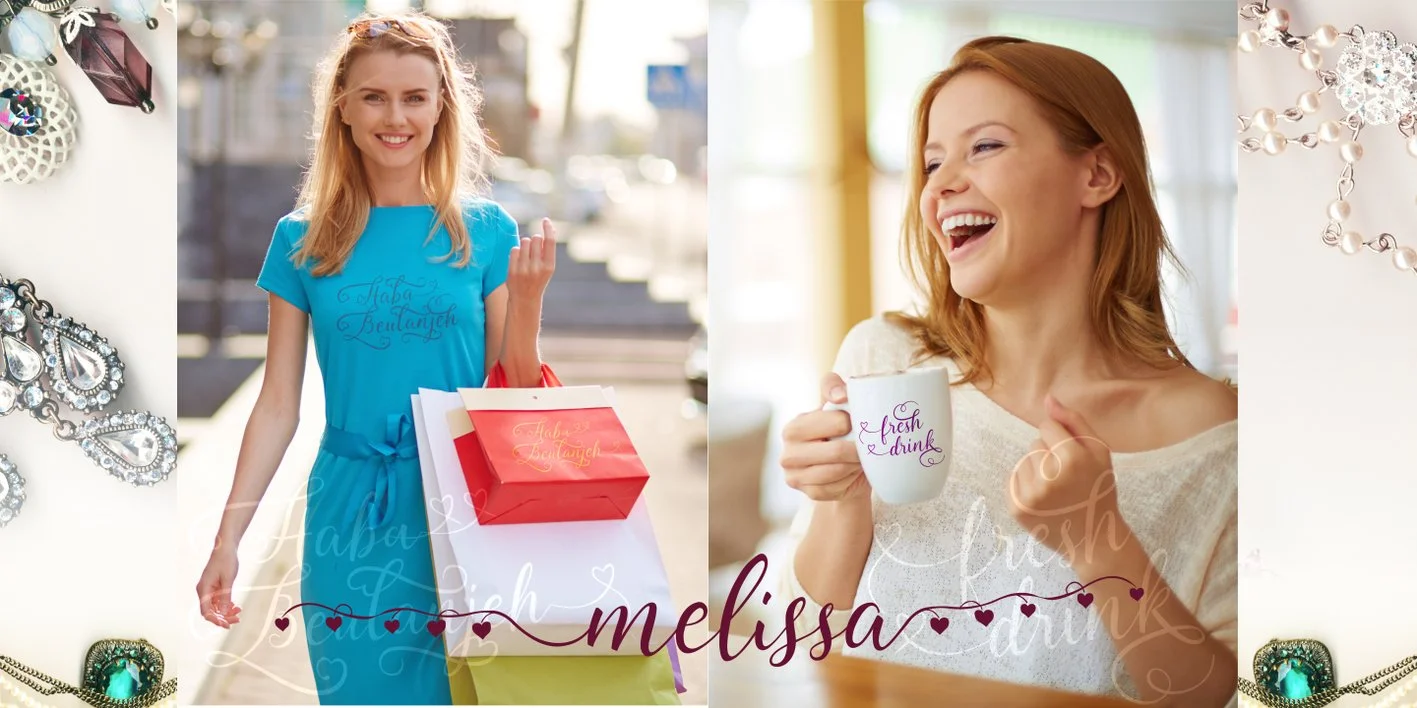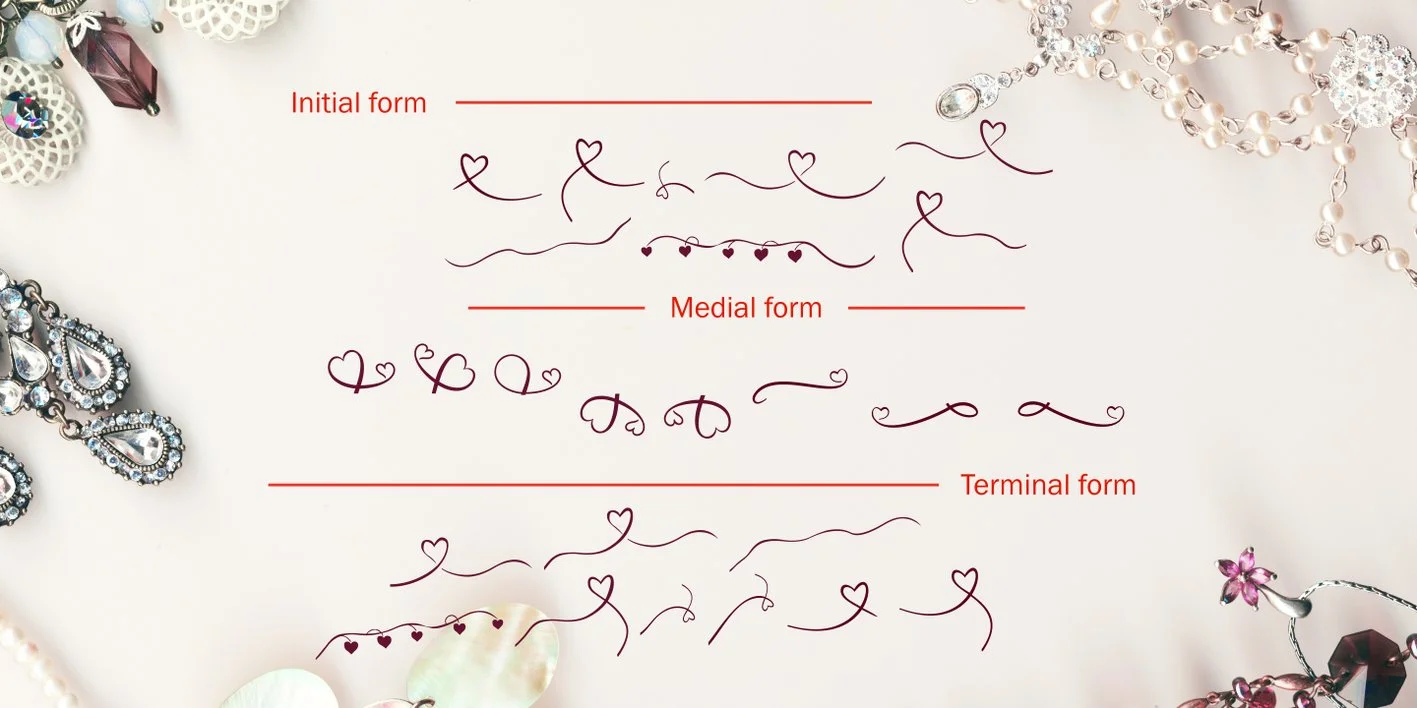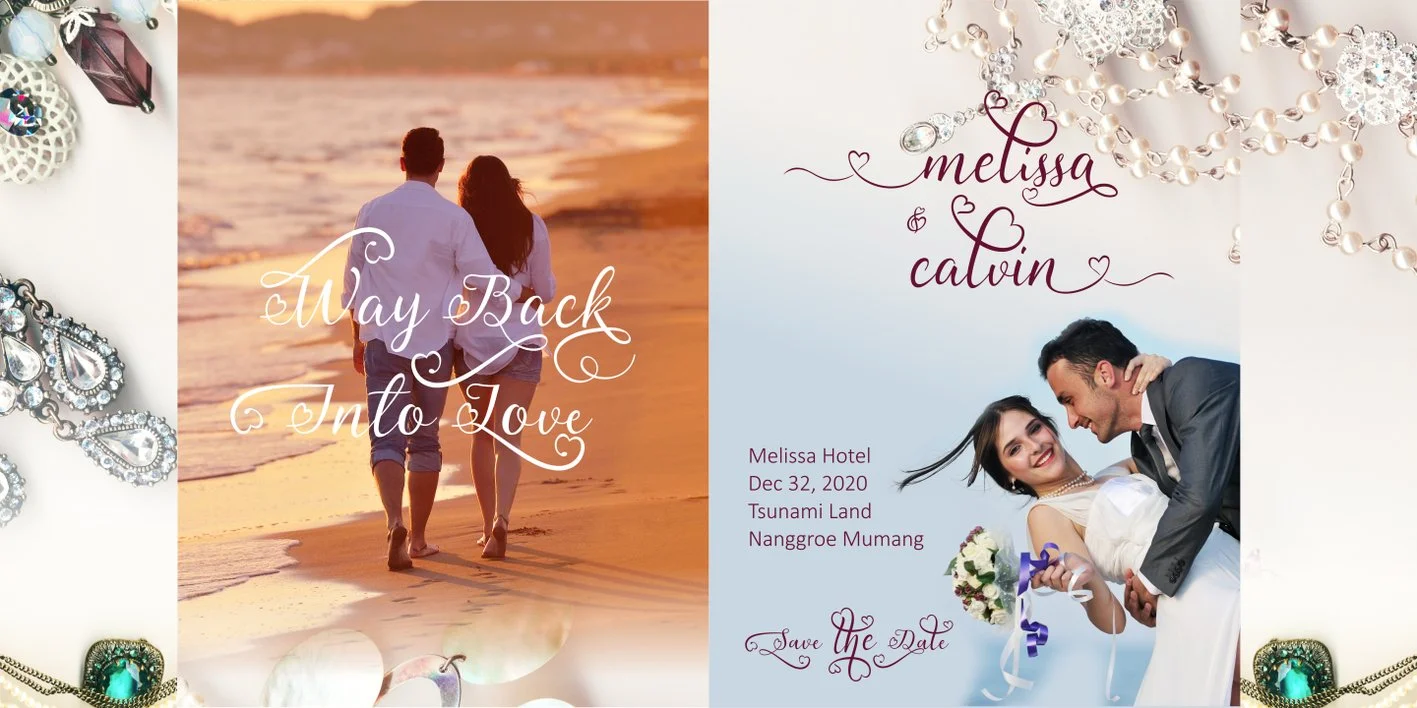
Lovely Melissa Font
There is a particular satisfaction in finding a typeface that delivers consistent type colour across continuous text without compromise. Lovely Melissa consistently provides it. The typeface brings a versatile sensibility to a broad range of creative disciplines, with visual harmony and precise spacing that holds up whether the work is print-first or screen-first.
In practice, Lovely Melissa proves particularly effective for advertising campaigns, product labels, poster creation, editorial layouts, brand identity systems. Designers reaching for it find that the type decisions feel resolved rather than laboured — a useful quality when client timelines are tight.
Spacing and kerning pairs have been individually reviewed for the most common letter combinations in English and major European languages. The result is even type colour across continuous text, with no awkward gaps or collisions between adjacent characters.
The range of applications extends to annual reports, environmental graphics, web design, packaging design. That breadth is deliberate: the proportions and spacing were stress-tested across a wide range of mock briefs before the typeface was finalised.
At smaller sizes the design retains its character without becoming cluttered. This resilience across scales makes Lovely Melissa equally suitable for a business card and a billboard — a useful property when assets must scale across a campaign.
Graphic designers working on identity systems find Lovely Melissa a reliable choice for projects that demand both personality and restraint. The design avoids the self-conscious quirkiness that dates quickly, settling instead for considered distinctiveness that holds up over time.